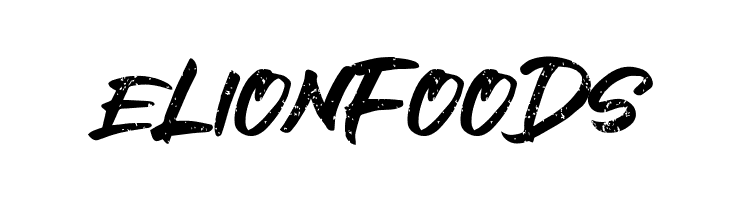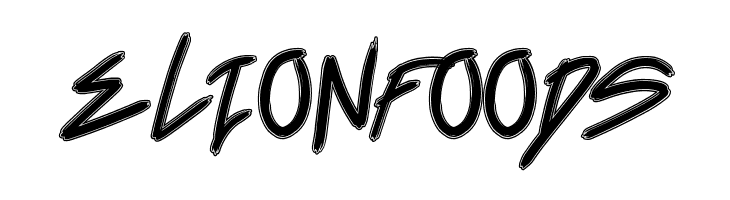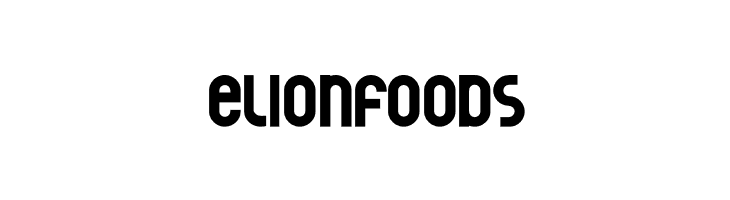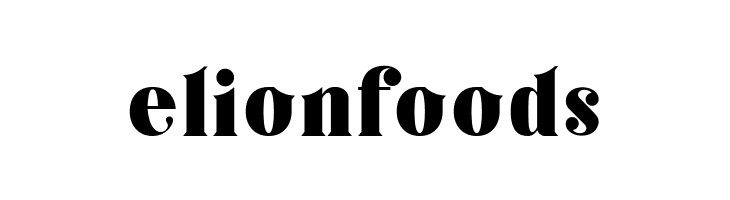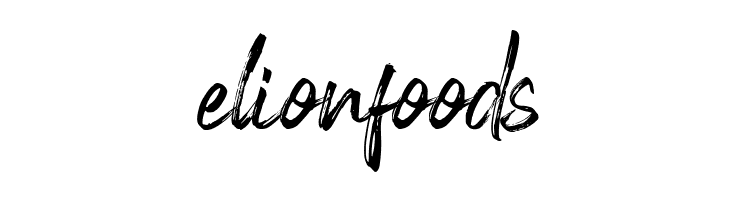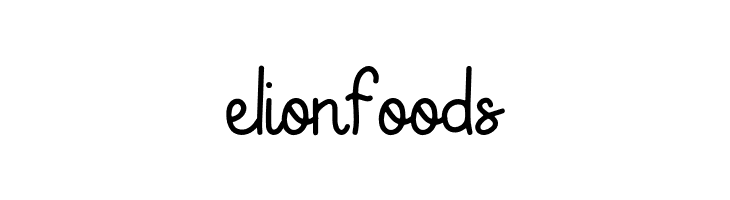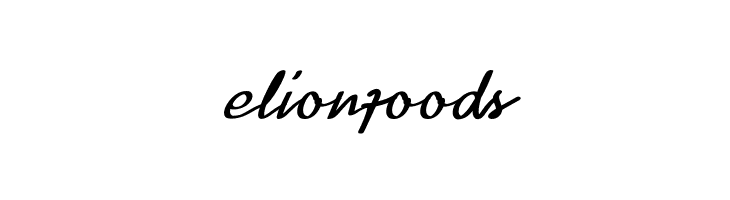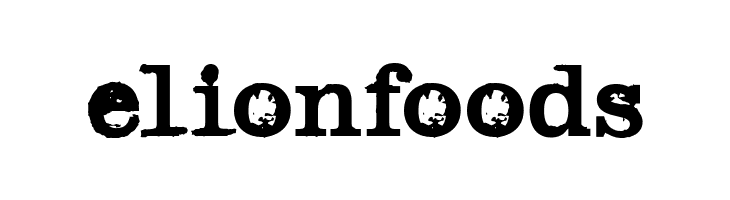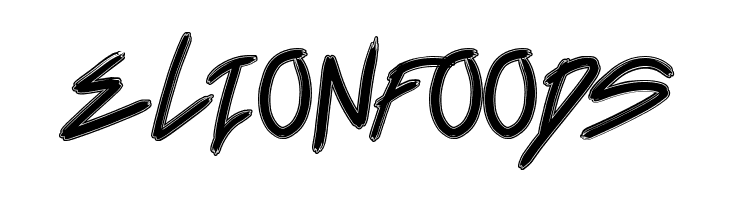
A bold, geometric font with strong, angular lines and a futuristic style.
A bold, dynamic script font with fluid, connected letterforms.
A bold, blocky font with a strong, modern aesthetic.
A bold, playful font with a bubbly, liquid-like appearance.
An elegant, flowing script font with delicate strokes and graceful curves.
An elegant script font with flowing, interconnected characters and high contrast strokes.
Expressive, high-contrast decorative script with tall, narrow forms.
A bold, hand-drawn font with an edgy, irregular style.
A bold, angular font with a modern and dynamic style.
A bold, brush script font with dynamic, flowing strokes and a handcrafted feel.
A bold, brush-style script font with high contrast and flowing, calligraphic strokes.
A playful and elegant script font with flowing, connected letterforms.
A playful, handwritten font with smooth curves and a casual style.
A playful, casual handwritten font with smooth, rounded edges.
A bold, geometric slab serif font with strong, uniform characters.
A bold, textured font with a rugged, vintage look.
A bold, expressive handwritten font with dynamic brush-like strokes.
A bold, brush-style font with an energetic and artistic flair.
A bold, geometric font with modern, futuristic design elements.
A bold, energetic brush-style font with dynamic strokes and fluid motion.
A bold, energetic script font with a brush-like texture and dynamic style.
A bold, hand-painted style font with textured, dynamic strokes.
A bold, expressive handwritten font with dynamic brush strokes.
A bold, high-contrast serif font with dramatic strokes and sharp serifs.
A bold, distressed font with a vintage, hand-crafted look.
A decorative blackletter font with ornate, angular strokes.
A bold, distressed font with a vintage, textured appearance.
A dynamic and fluid script font with elegant, flowing letterforms.
A bold, ornate Blackletter font with sharp, angular lines and medieval flair.
An ornate, italicized font with sharp, angular lines and a calligraphic style.
A bold, ornate blackletter font with dramatic, angular strokes.
Intricate ornamental elements with a vintage calligraphic style.
A bold, textured brush-style font with a distressed, grunge aesthetic.
A bold, brush-style script with a distressed texture and dynamic strokes.